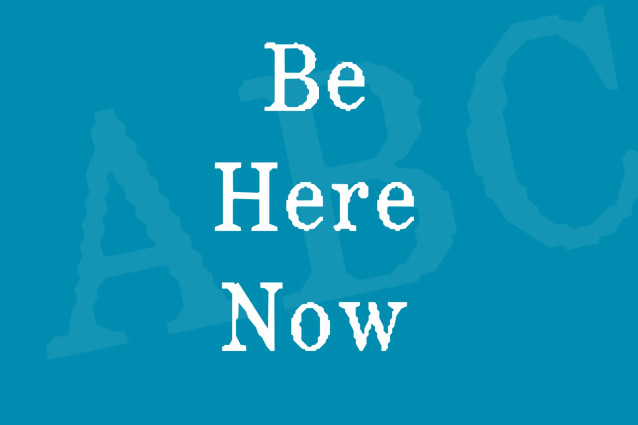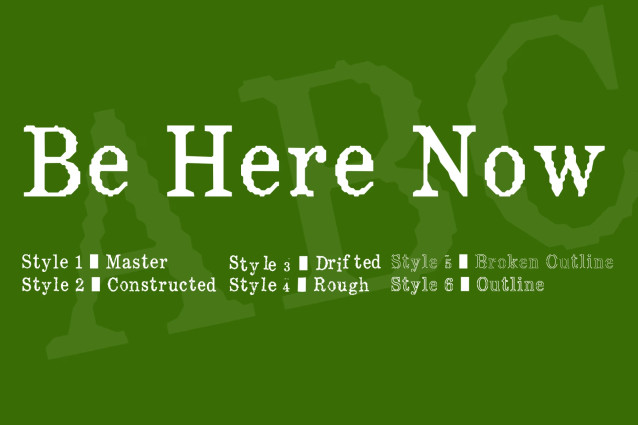
Be Here Now is an experimental display typeface family in six related styles: Master, Constructed, Drifted, Rough, Broken Outline, and Outline. Obviously riffed from Ram Dass, but that’s why you’re here.
Be Here Now Font
| Classification: | Display Fonts, Outline Fonts |